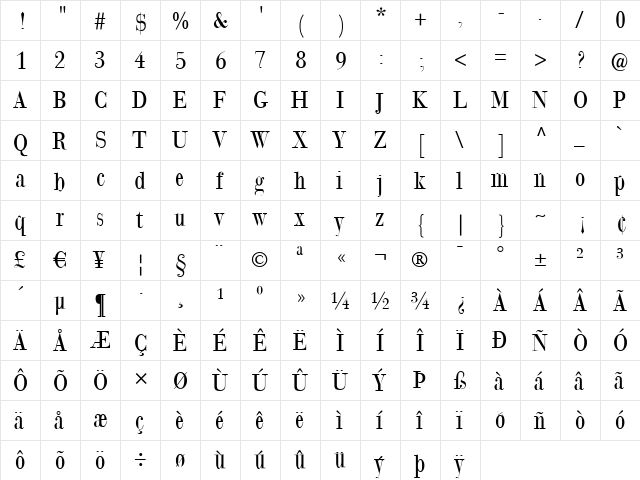
GiambattistaDueMille Regular
Design Context for GiambattistaDueMille Typeface
GiambattistaDueMille offers clean, dependable letterforms without strong stylistic allegiance, making it a practical choice for designers who need flexibility.